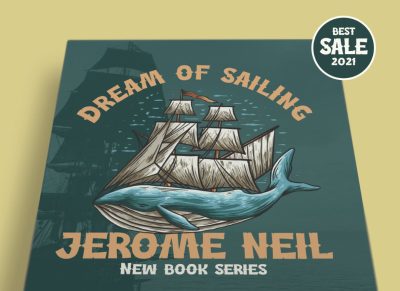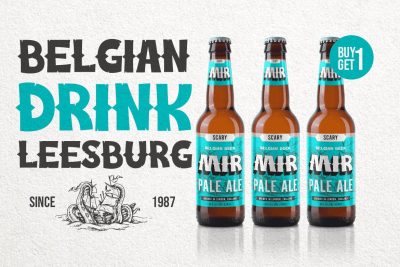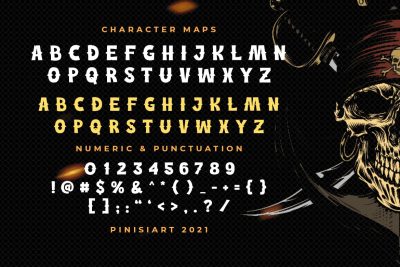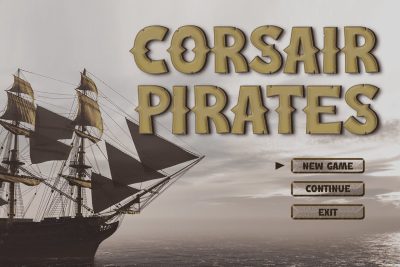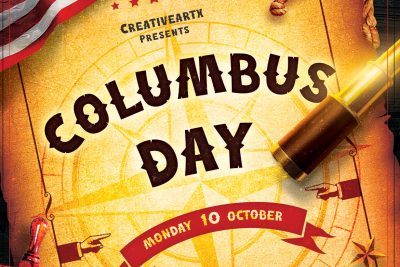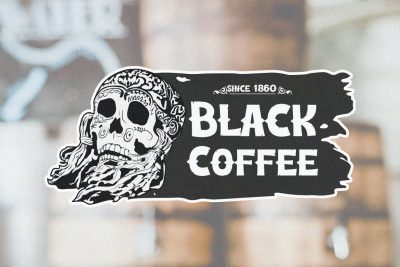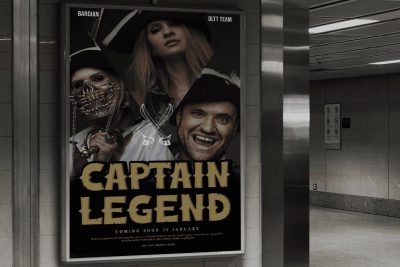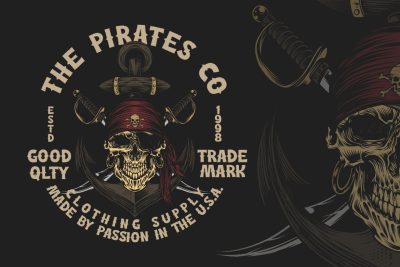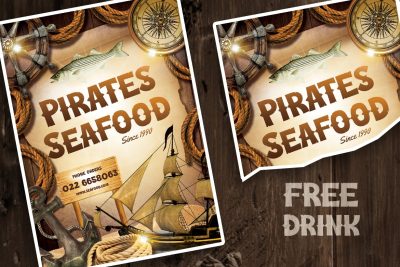
Capitan Mura
Tattoo Font Capitan Mura is a striking typeface that brings the bold spirit of pirates to life. With its rugged, sharp edges and adventurous aesthetic, it is ideal for designs needing strength, mystery, and rebellion. Inspired by the golden age of piracy, the font captures the essence of exploration and daring voyages. Additionally, the distressed and textured letters add an authentic, handcrafted feel. As a result, this font stands out in any creative project.
This font is perfect for headlines, branding, and artistic designs that demand attention. Not only are the bold characters easy to read, but their intricate details also give them a decorative flair. Furthermore, Tattoo Font Capitan Mura evokes a sense of adventure and timeless charm. Its adaptable nature suits both vintage and modern styles, offering designers endless possibilities.
Tattoo Font Capitan Mura Perfect for
Capitan Mura is an excellent tool for a variety of users. For example, graphic designers working on branding or marketing campaigns will appreciate its impactful style. Whether designing for entertainment brands, escape rooms, or pirate-themed events, this font ensures a dynamic edge. Moreover, it’s perfect for posters, banners, and merchandise.
Tattoo artists will also find Capitan Mura indispensable. Its bold and textured design works beautifully for tattoo lettering. In particular, it’s especially fitting for nautical symbols, pirate themes, or rugged aesthetics. Consequently, the font’s unique style guarantees that each tattoo design feels custom and impactful.
Similarly, this font also works well for businesses seeking thematic branding. For instance, restaurants, bars, or cafes with a nautical or pirate theme can use it for logos, menus, and signage. Additionally, event planners can incorporate it into pirate-themed invitations, décor, or promotional materials. As a result, it helps create a cohesive and immersive experience.
In conclusion, Tattoo Font Capitan Mura is versatile, bold, and adventurous. It’s perfect for creative professionals, tattoo artists, and businesses looking to capture the spirit of adventure. Whether you’re creating tattoos, event materials, or thematic branding, this font brings your ideas to life with flair.
The sea conqueror, the most feared captain of the seven seas. Please welcome, Capitan Mura.